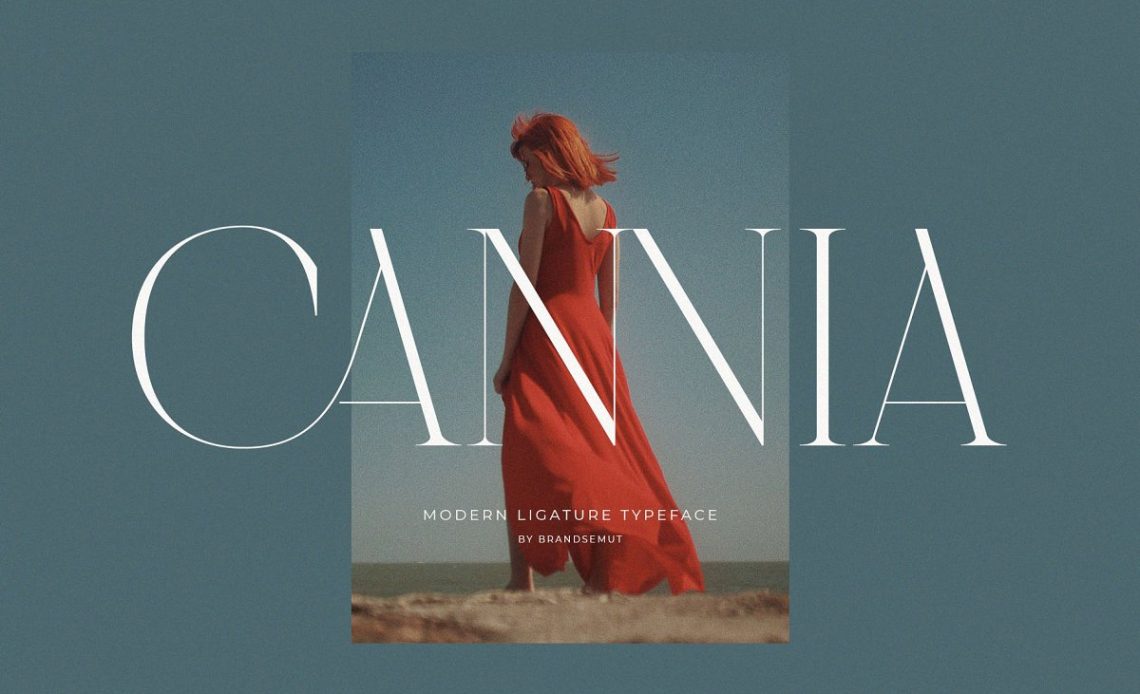
Looking for a unique and stylish font for your wedding invitations or branding projects? Look no further than Cannia, the modern ligature typeface created by Ahmad Sidiq. With its elegant serif style and beautiful ligatures, Cannia is the perfect choice for anyone looking to add a touch of class to their designs.
But Cannia isn't just a pretty face - it's also incredibly versatile and easy to use. With multilanguage support and a variety of alternate characters to choose from, you'll be able to create stunning designs in no time.
Whether you're creating a logo, a master head, or just need a font that will make your wedding names stand out, Cannia has you covered. And with our easy-to-use OTF, TTF, and WOFF files, you'll be up and running in no time.